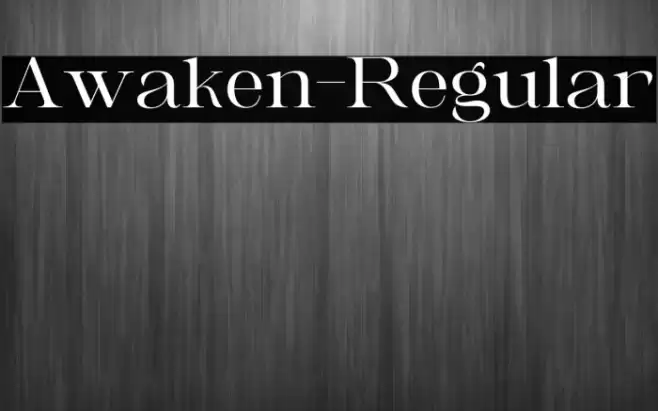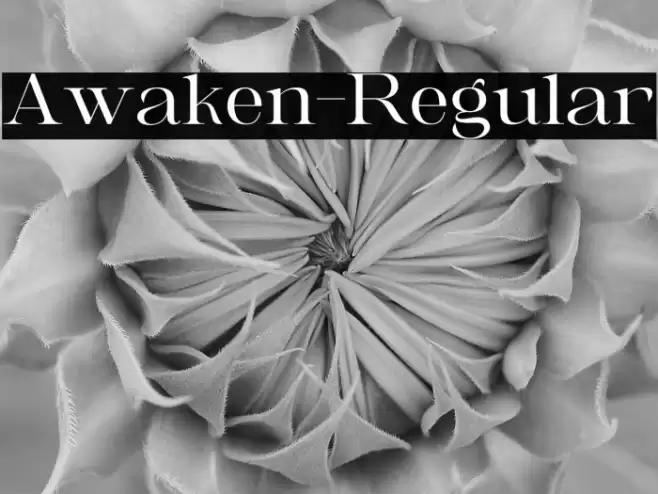
Awaken-Regular Font
Awaken-Regular Description
This font features a classic serif style with elegant and refined strokes. The uppercase letters exhibit a traditional formality, while the lowercase letters maintain a balanced and harmonious appearance. The numerals are distinct and clear, making them easily readable. Special characters are designed with a consistent style, adding to the overall cohesiveness of the font. The contrast between thick and thin strokes is moderate, providing a sophisticated and timeless look. This font is suitable for projects that require a touch of elegance and professionalism.
A classic serif font with elegant strokes and moderate contrast from Regular fonts.
- Proposed Projects: Ideal for editorial design, book covers, formal invitations, and branding materials.
- Overall Style: Classic